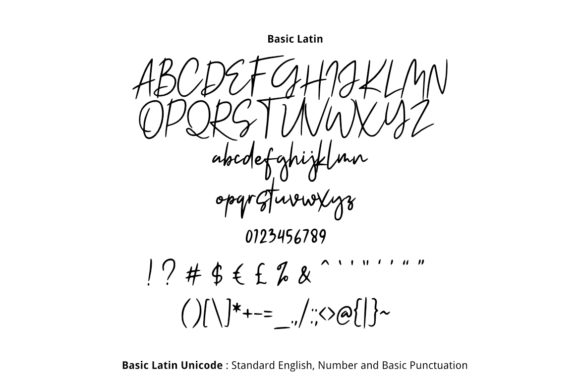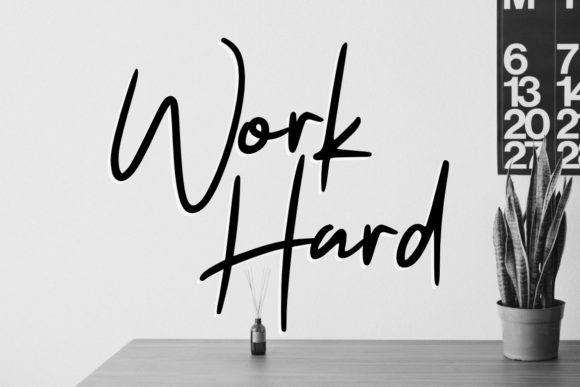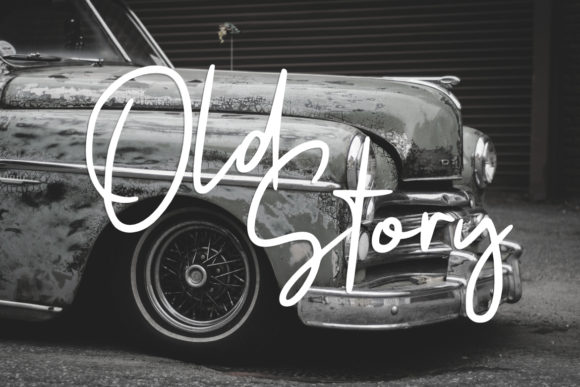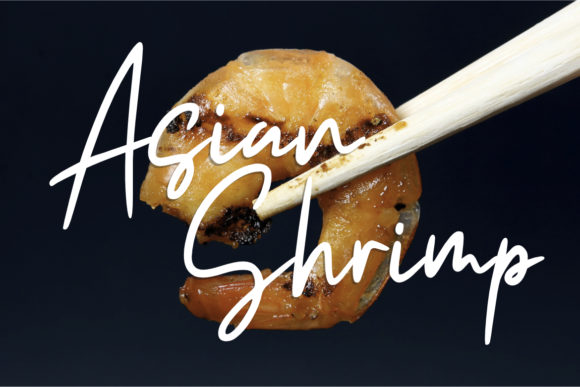
Shakila Font
About Shakila Font
Shakila radiates charm and simplicity, which makes this gorgeous script font a true standout. Use it to take any craft project to the next level!